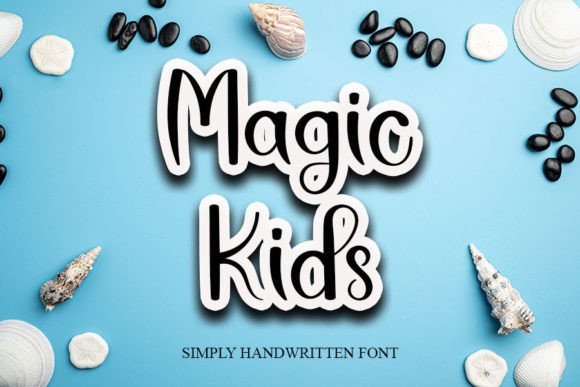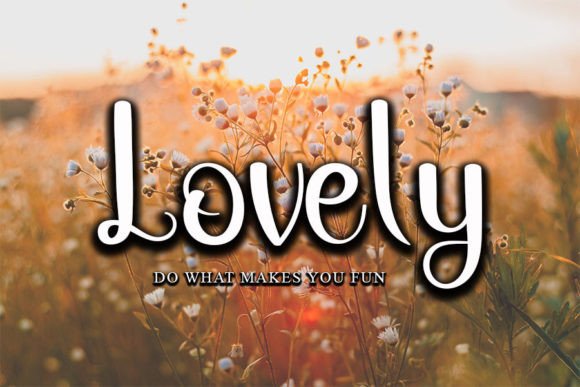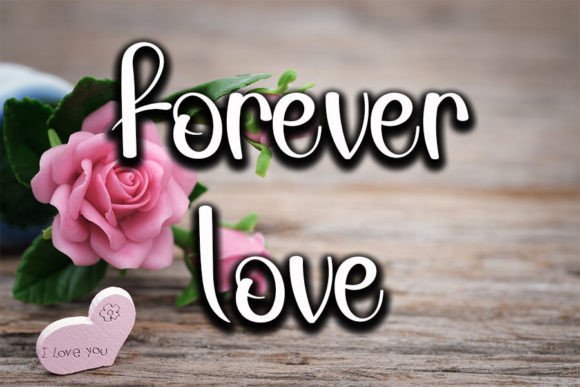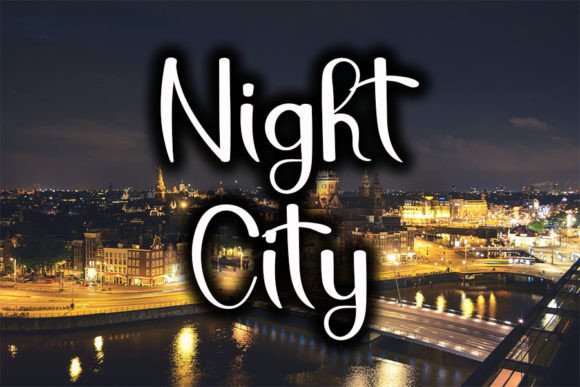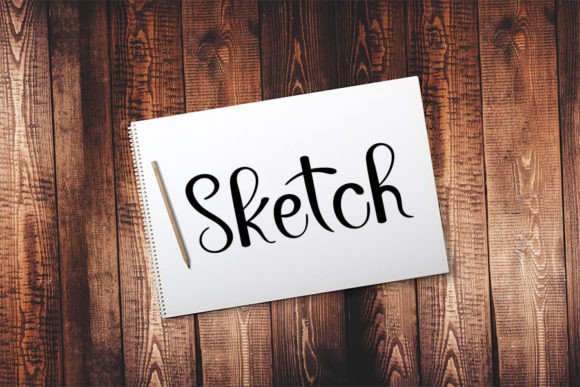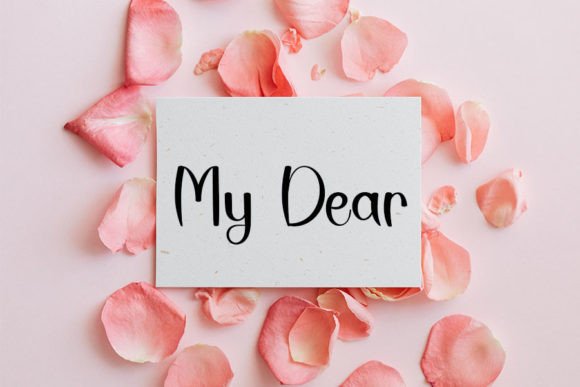
Magic Kids Font
“Magic Kids” is a charming and slender handwritten font that exudes a delightful and whimsical essence. Its daintiness and joyful demeanor make it the perfect choice for a wide range of design applications, particularly those that seek to infuse a romantic and personalized touch. Whether you’re crafting enchanting wedding invitations, heartwarming cards, or any design project that aims to evoke a sense of romance and intimacy, “Magic Kids” proves to be the ideal font to bring a touch of magic to your creations.
The font’s slim and delicate letterforms lend it an air of elegance, adding a refined quality that is well-suited for projects requiring a sense of sophistication. “Magic Kids” has the power to transform your designs into whimsical expressions of emotion, making them feel personal and enchanting to your audience.
In the realm of design, fonts play a crucial role in conveying emotions, setting the mood, and creating lasting impressions. “Magic Kids” excels in these aspects, offering a harmonious blend of delicacy and joy that makes it particularly well-suited for romantic and heartfelt projects. Its handwritten style brings a unique and personalized dimension to your designs, making them truly special and memorable.
In summary, “Magic Kids” is more than just a font; it’s a magical tool for infusing romance, joy, and personalization into your designs. Its slender and delicate aesthetics make it an excellent choice for designers seeking to create heartfelt and intimate works of art. Whether you’re a seasoned designer or embarking on a creative journey, “Magic Kids” is the perfect font to add an enchanting touch to your work.